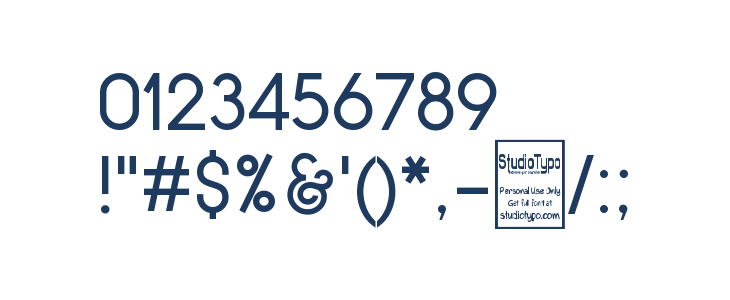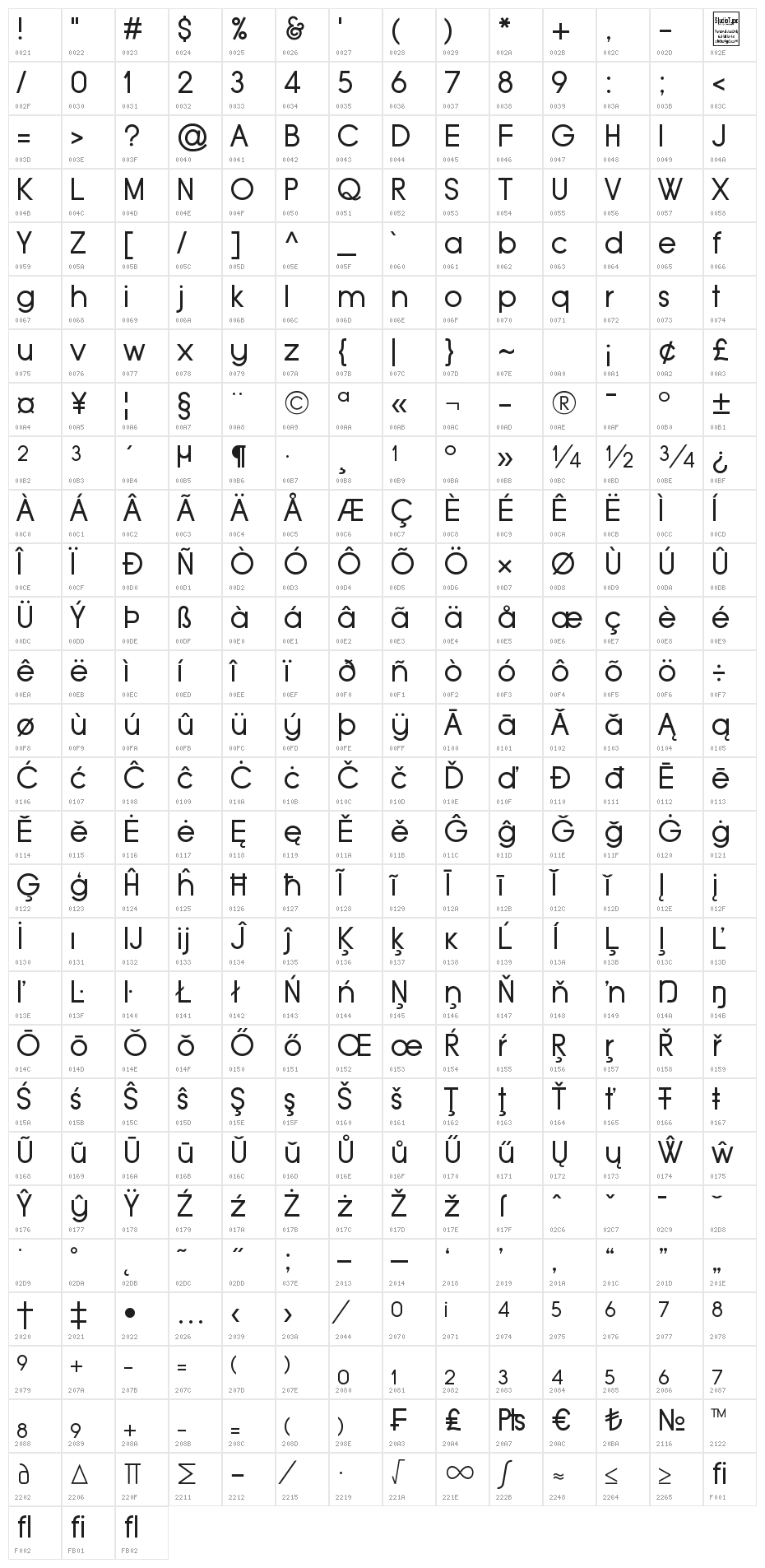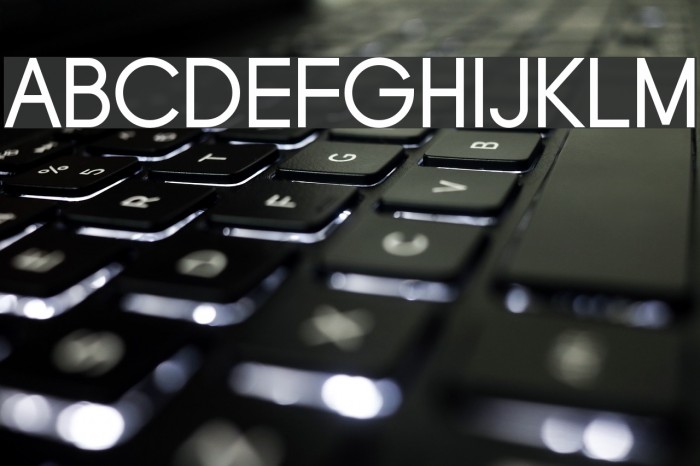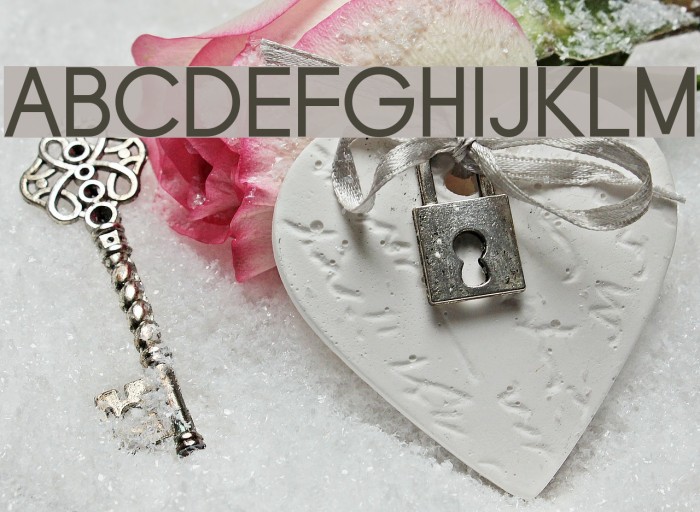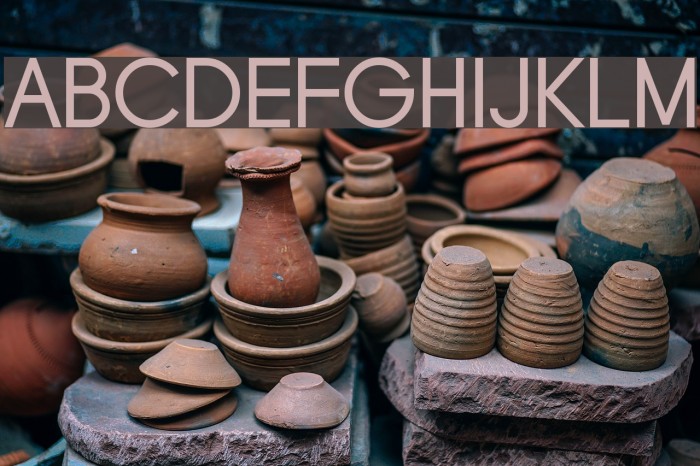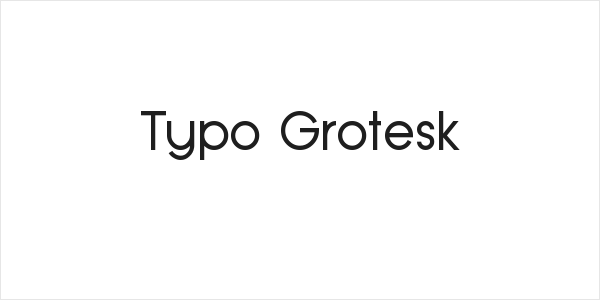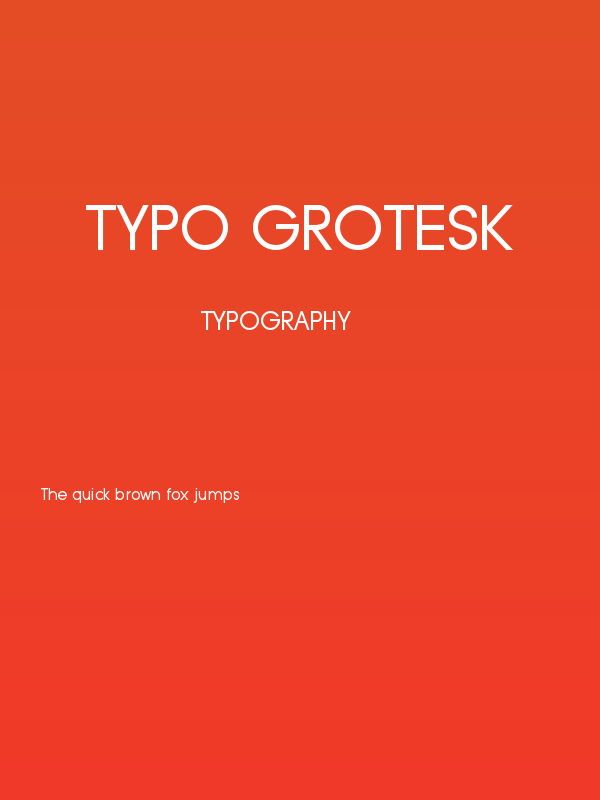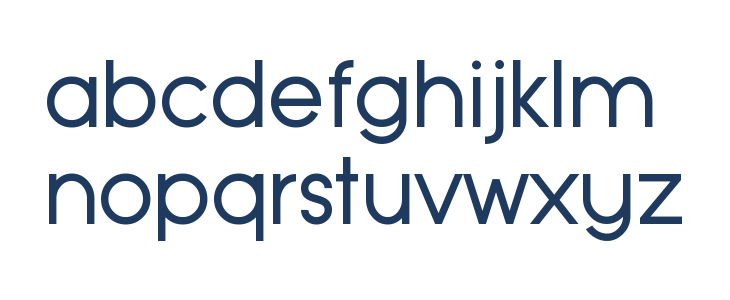
Typo Grotesk Font
Typo Grotesk Description
This typeface embodies a clean and modern aesthetic, characterized by its geometric and uniform letterforms. The uppercase and lowercase letters are well-balanced, with consistent stroke widths that convey a sense of stability and clarity. The numerals are straightforward and align seamlessly with the overall design, enhancing readability. Special characters are crafted with precision, maintaining the font's cohesive look. Its simplicity and elegance make it versatile for various design applications, from digital to print media. The font's structure is both functional and visually appealing, making it suitable for contemporary design projects.